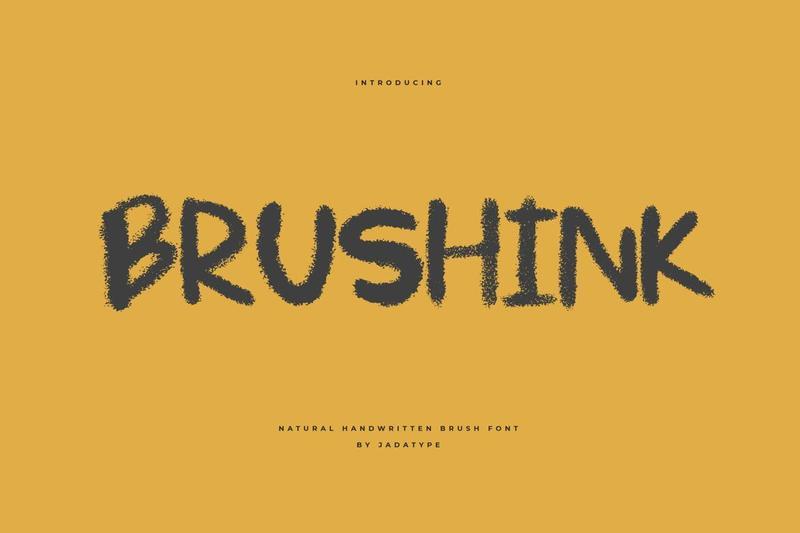
Brushink – All-Caps Brush Display Font C6Z9ZTF
Brushink is an all-caps brush display font featuring bold handwritten strokes and a textured ink-brush appearance. Designed to create strong visual impact, it is ideal for branding, social media graphics, posters, merchandise, logos, and creative display typography. The font includes standard English letters, numbers, punctuation, and multilingual accents, making it suitable for a wide range of expressive design projects.
Standard uppercase and lowercase letters
Numbers and basic punctuation
All-caps brush-style display letterforms
Several accented characters for multilingual support
Single style: Regular